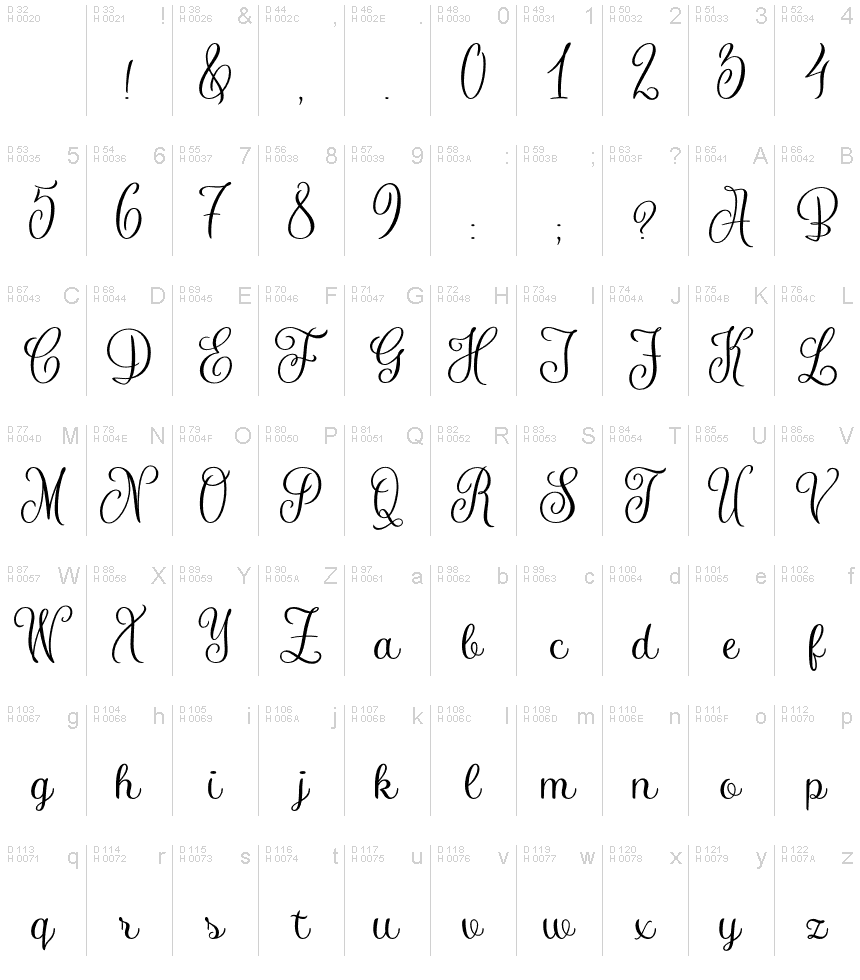
Snow You Demo Regular
Snow You is an upright calligraphy script font.
You can create nice handmade typography with it either alone or combining it with other scripts for the best result depending on your project, whether it be
* logos,
* printed quotes,
* invitations,
* cards,
* Instagram posts.
R & B